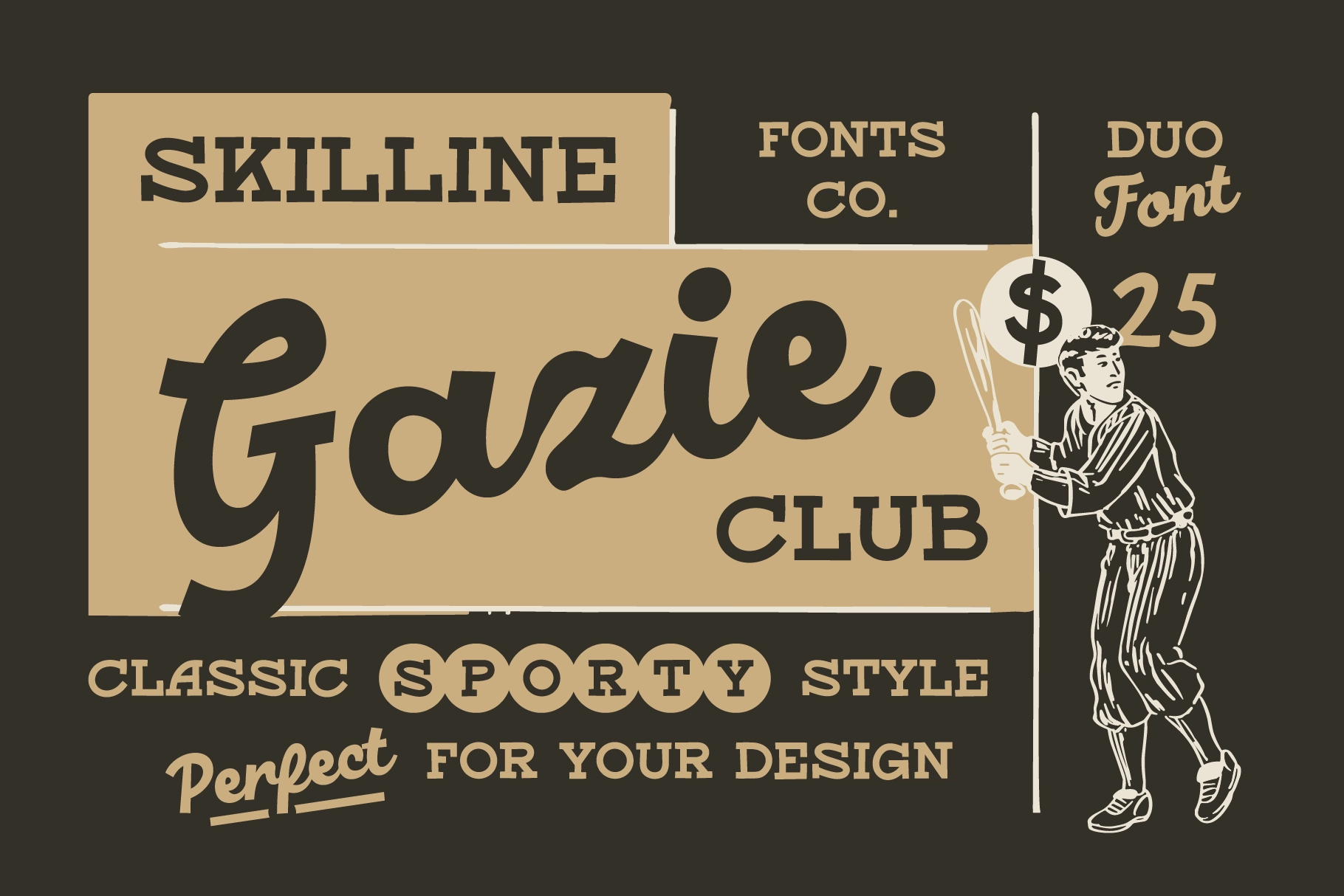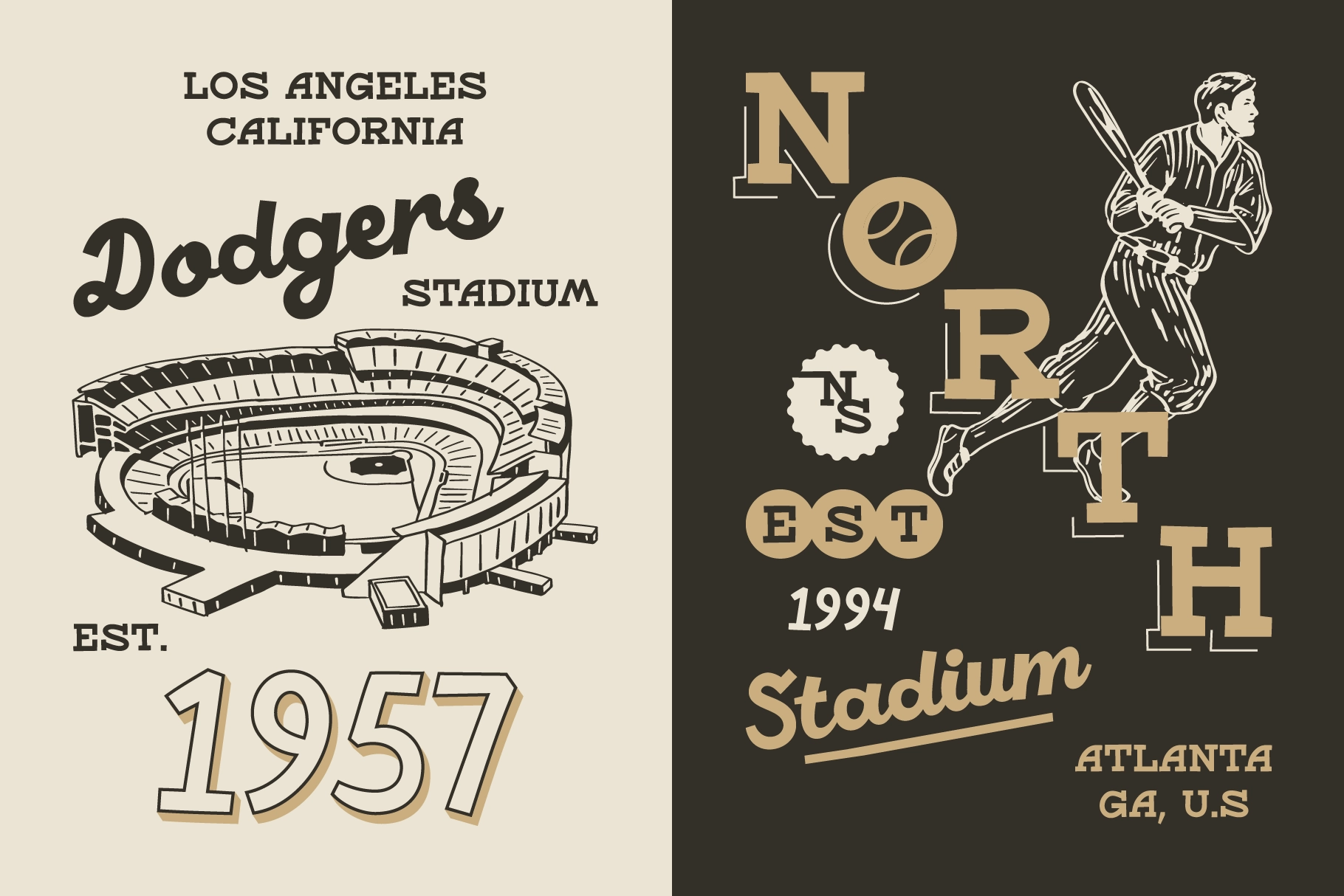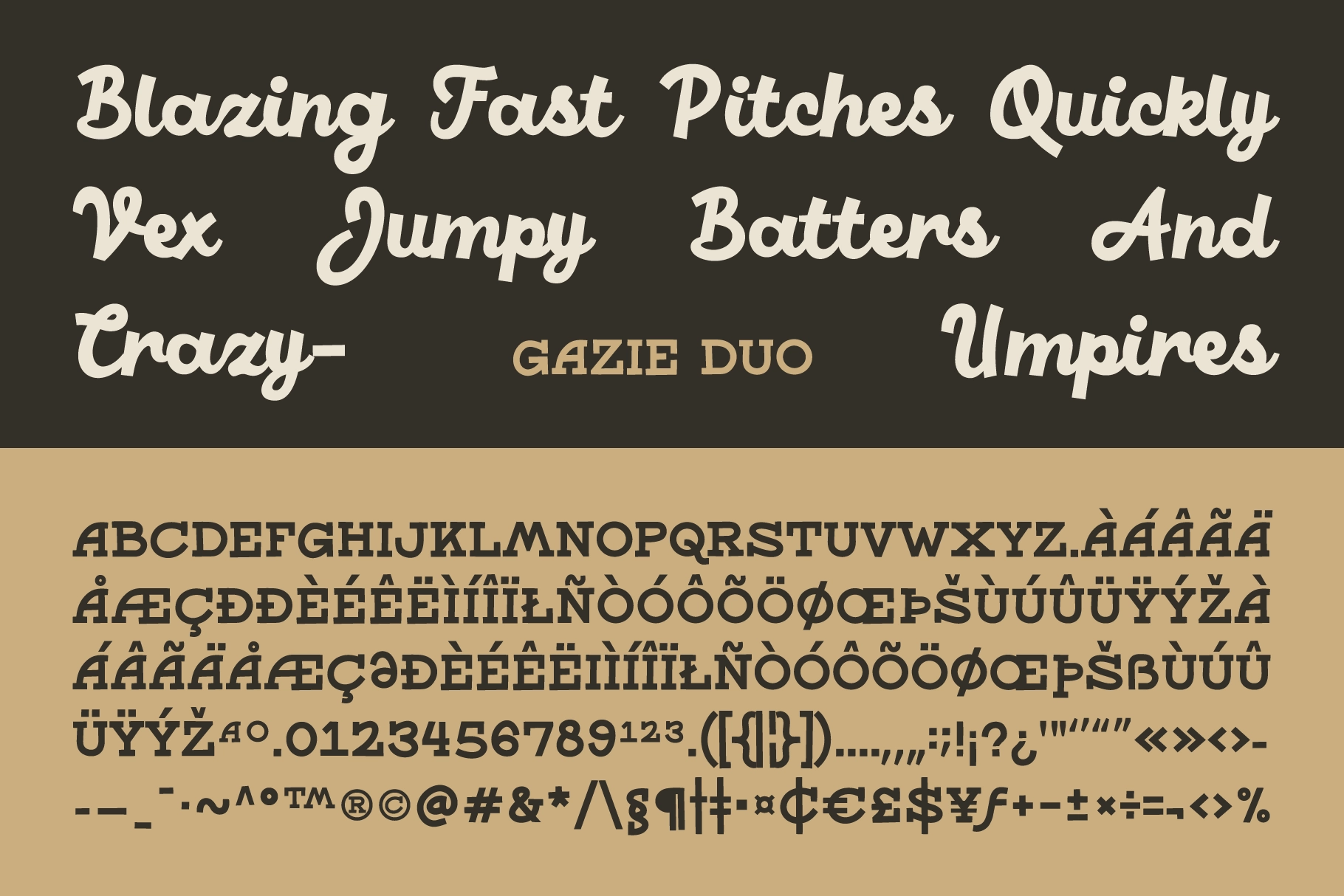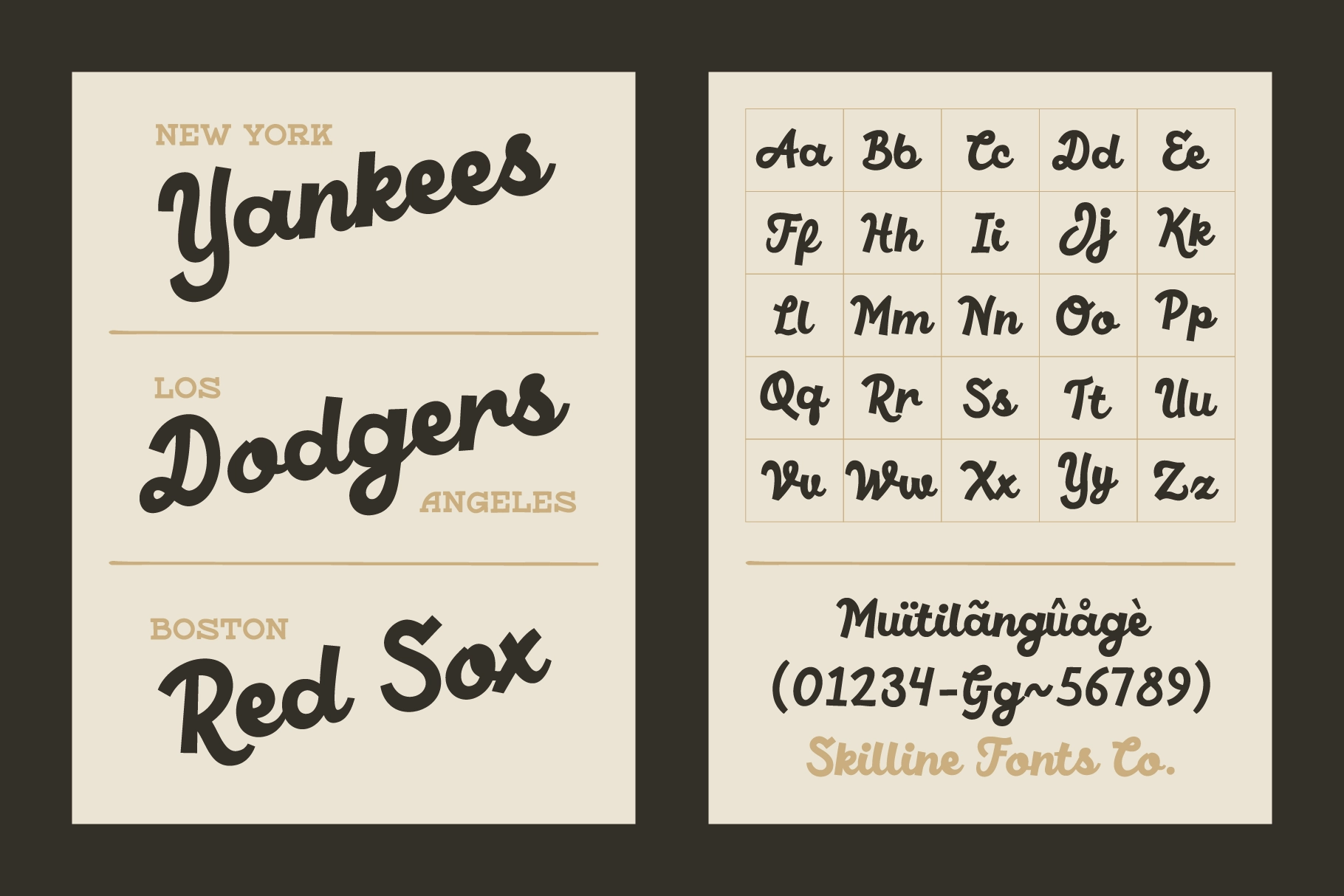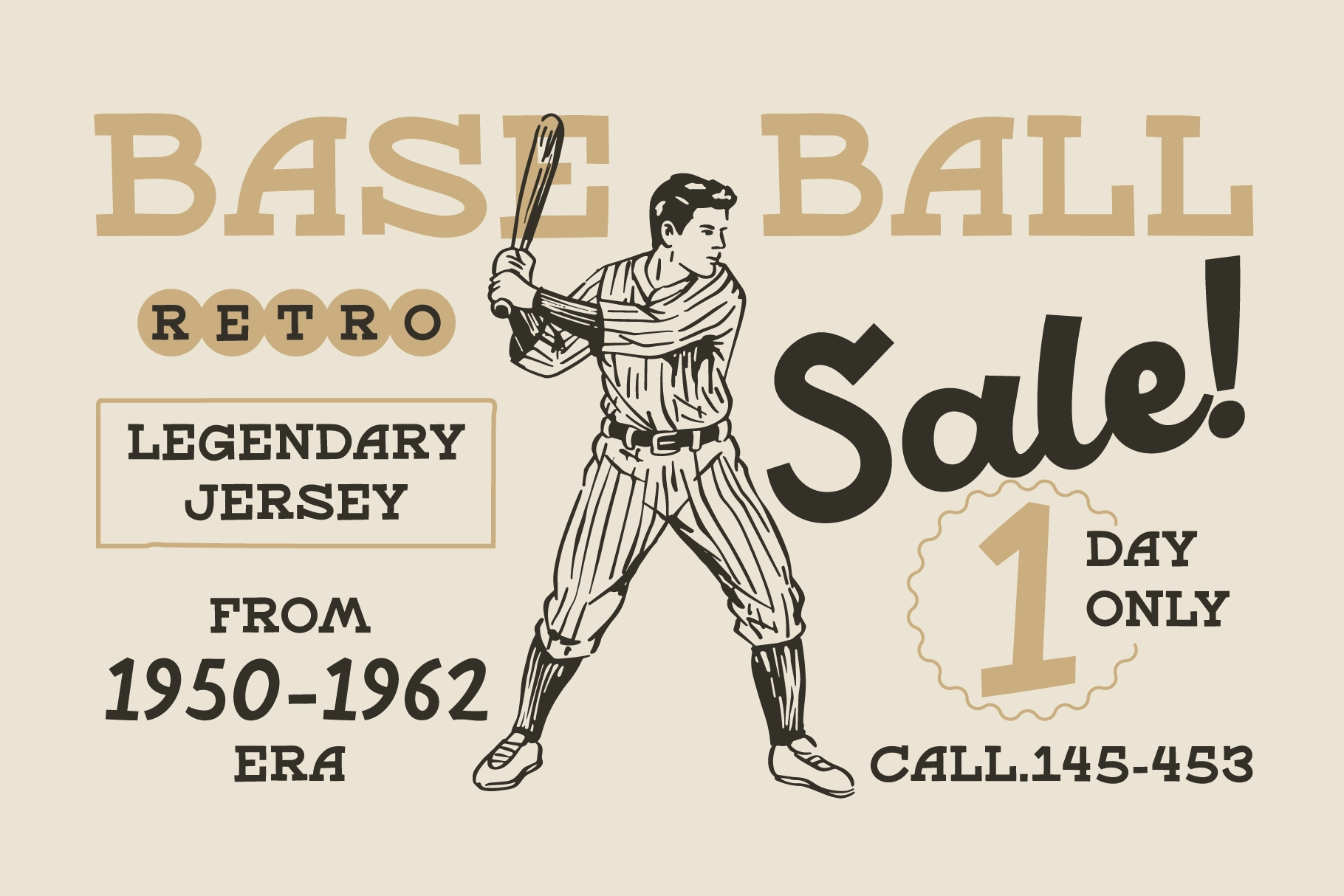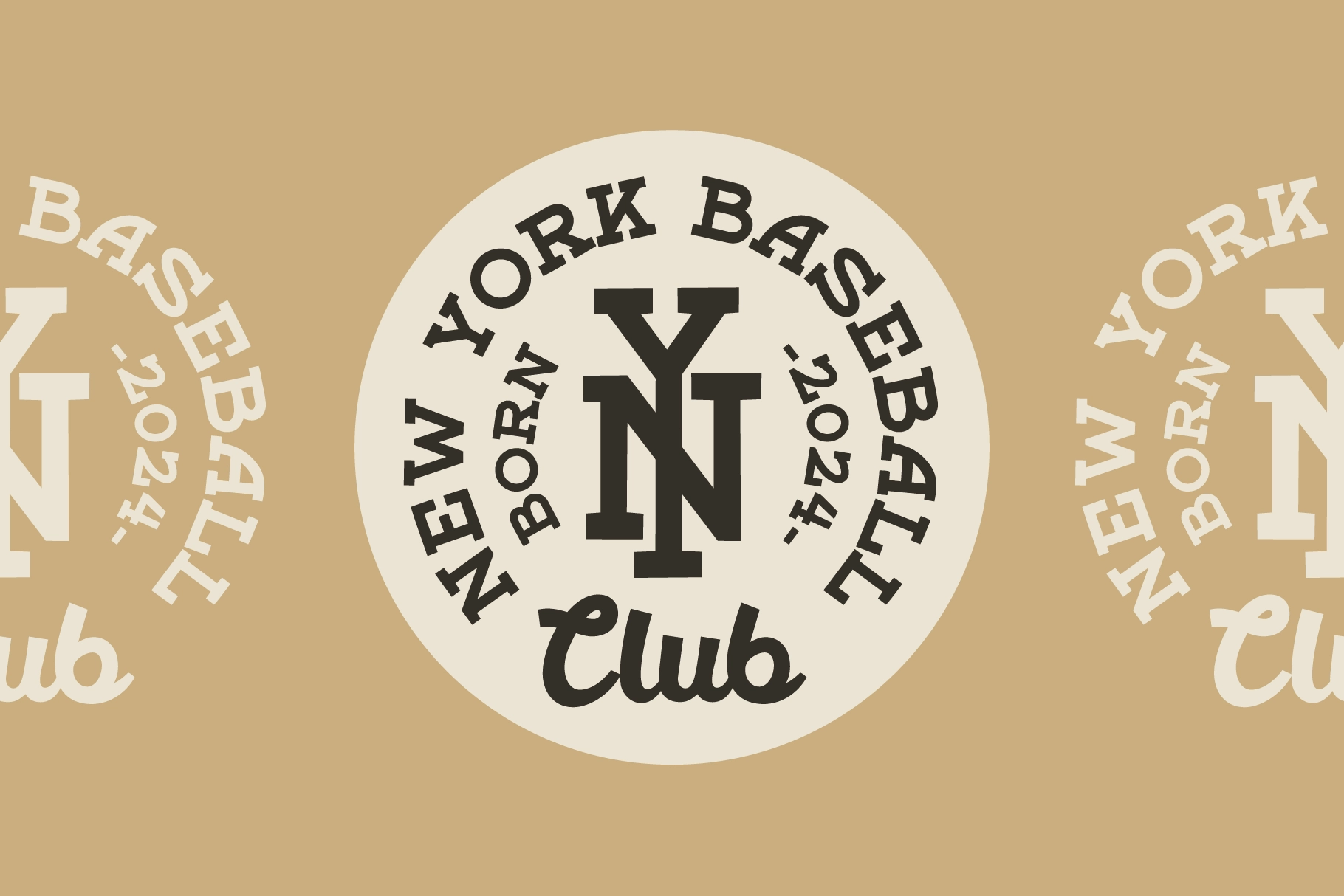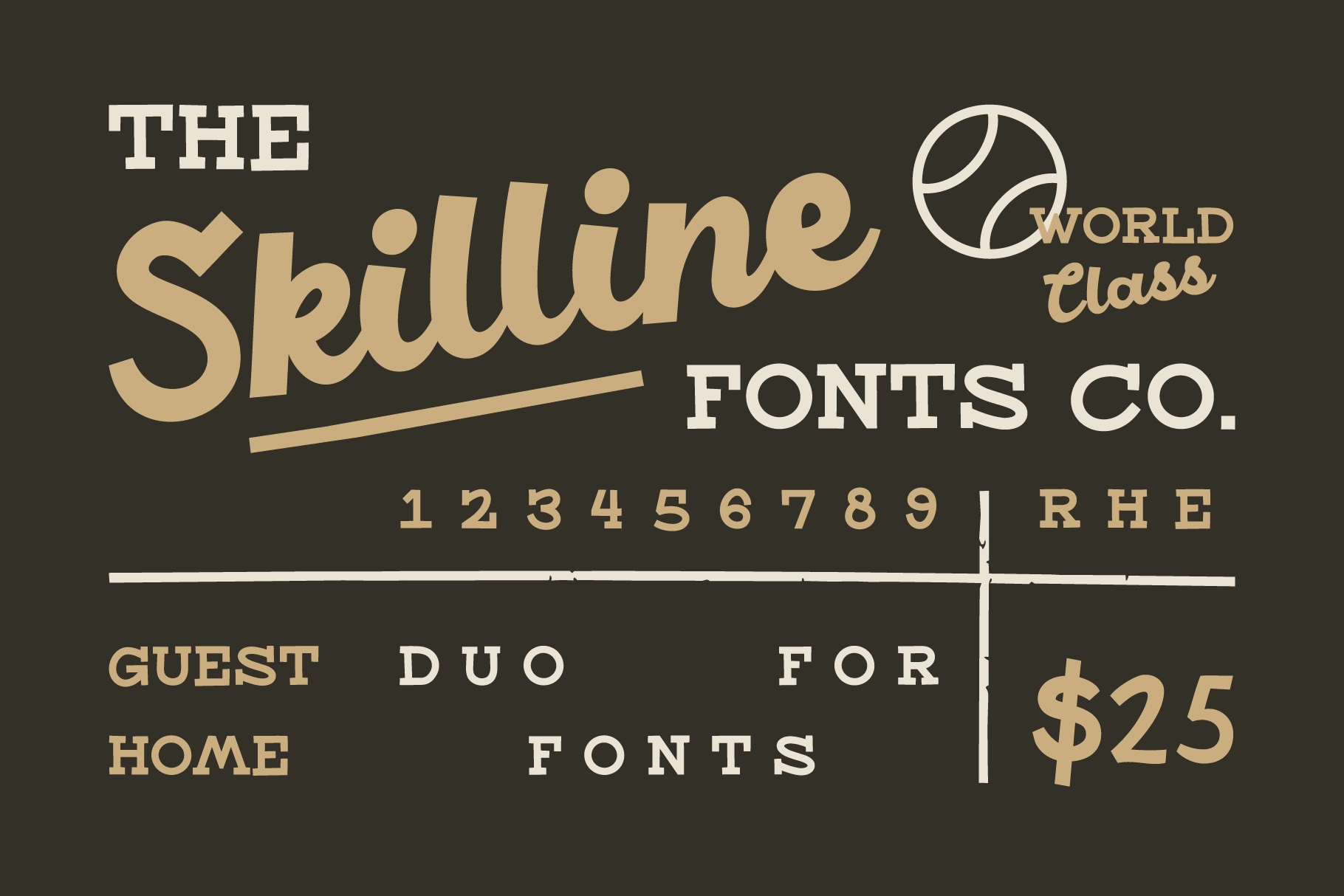
SFC Gazie - Retro Sports Font Duo
A retro font duo with chunky slab letters and a smooth script companion, made for athletic graphics with a classic clubhouse mood. The sports character is clear in the wide letterforms, sturdy serifs, rounded script strokes, and bold number styling.
Gazie pairs well with baseball logos, varsity merch, team badges, jersey graphics, stadium posters, sportswear labels, pennant designs, club branding, ticket-style layouts, vintage ads, apparel drops, packaging, scoreboard-inspired graphics, and Americana identity work.